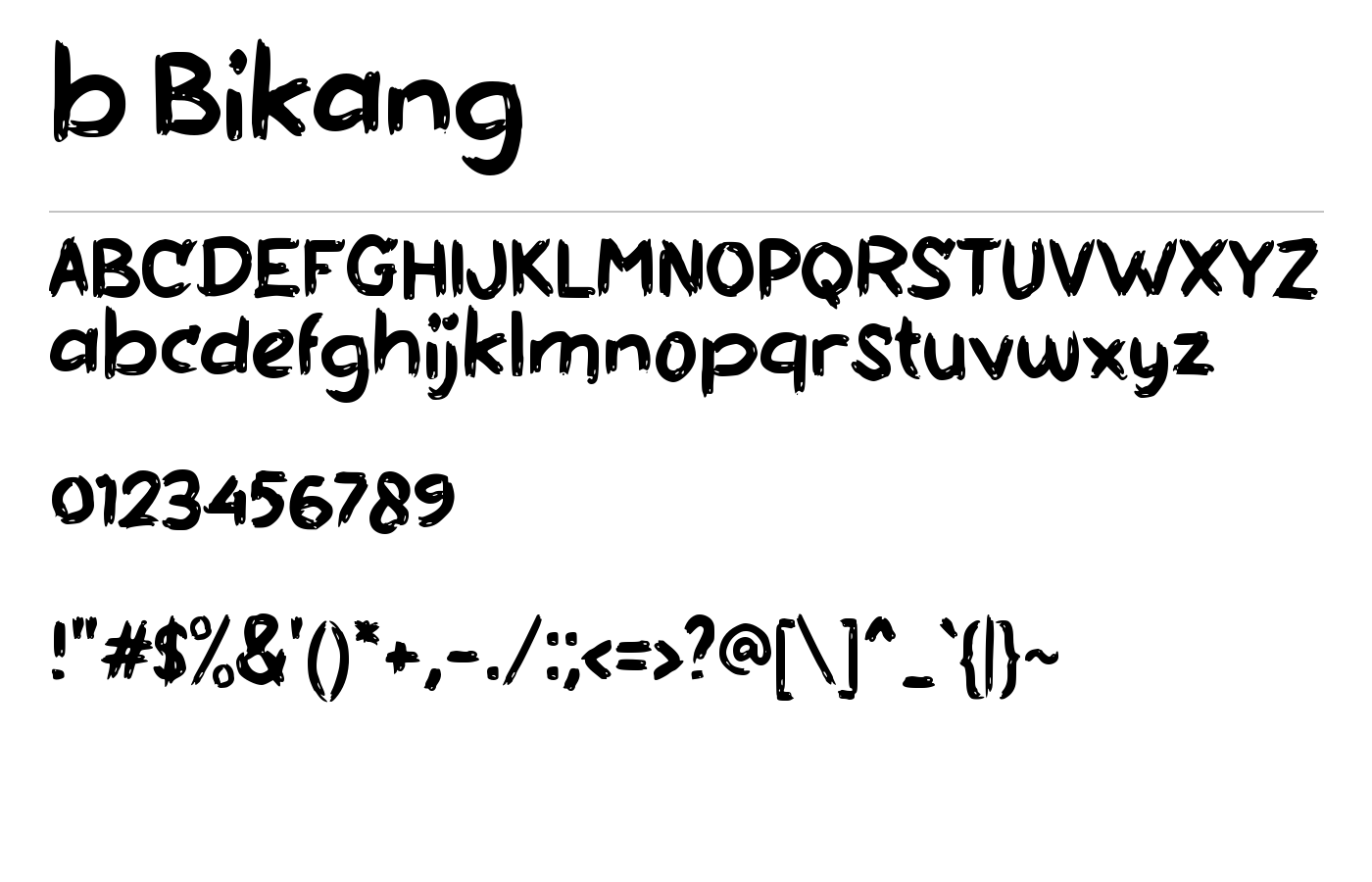
b Bikang is a playful and informal sans serif font with a hand-drawn, brushstroke texture that gives it a lively and creative feel. Its irregular, slightly condensed letterforms and uneven edges convey a casual, approachable personality, perfect for fun, youthful designs. This font works well for eye-catching headlines, posters, and branding projects that want to communicate energy and originality.
b Bikang Font